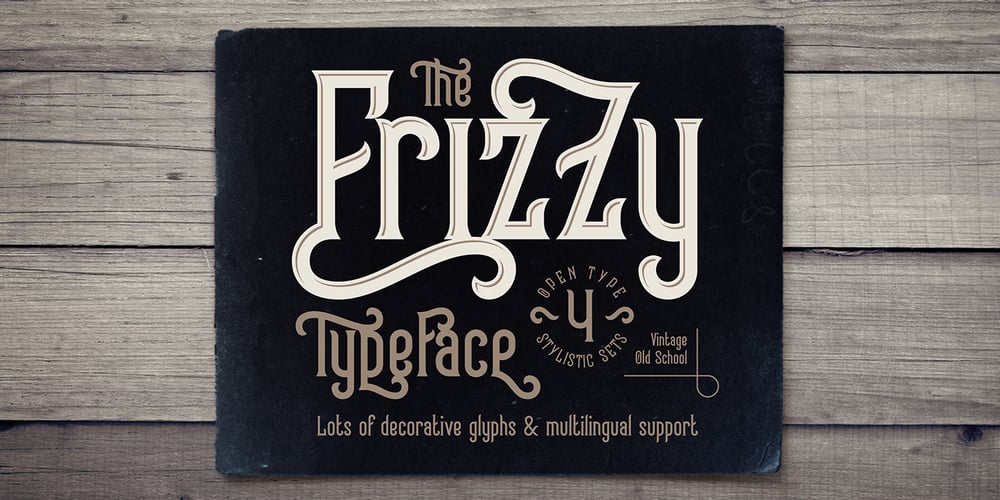
Frizzy Font Family was designed by Gleb Guralnyk and published by Gleb Guralnyk. Frizzy contains 1 styles and family package options. Frizzy is a classic look vintage style font with a big set of additional characters. Lowercase letters have 4 stylistic sets with different shapes. Uppercase letter has two additional glyphs with upper and lower swashes. All those features can be found in the OpenType panel. Five extra swashes are available in the glyphs panel. When combining all of this features, you can create an interesting and unique lettering compositions. Thank you and have a nice day!